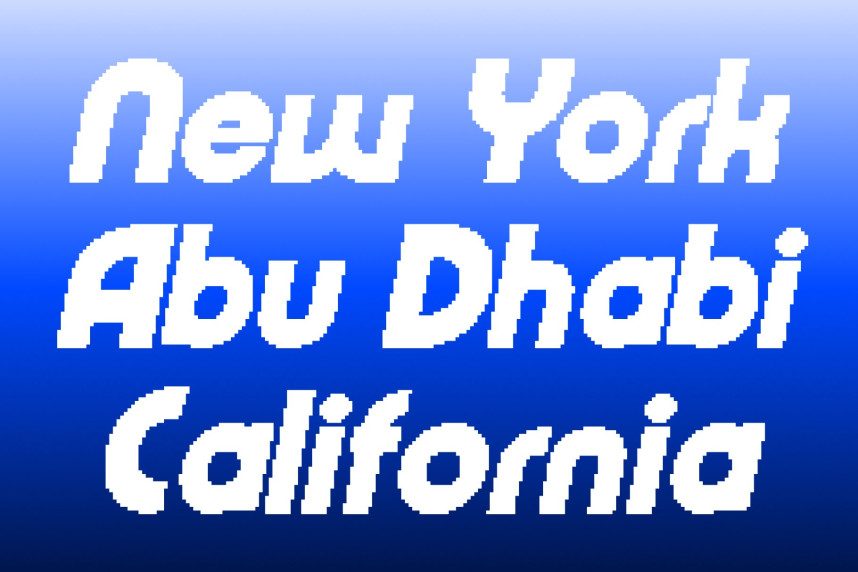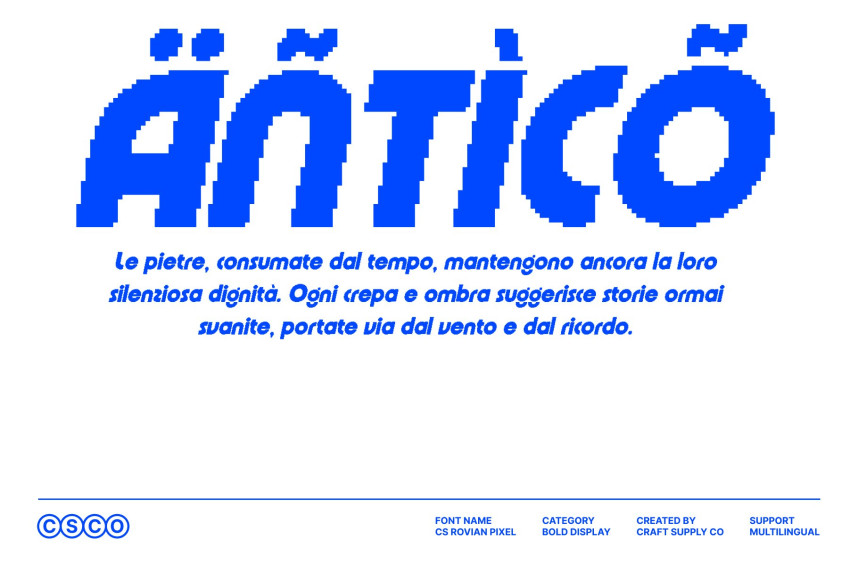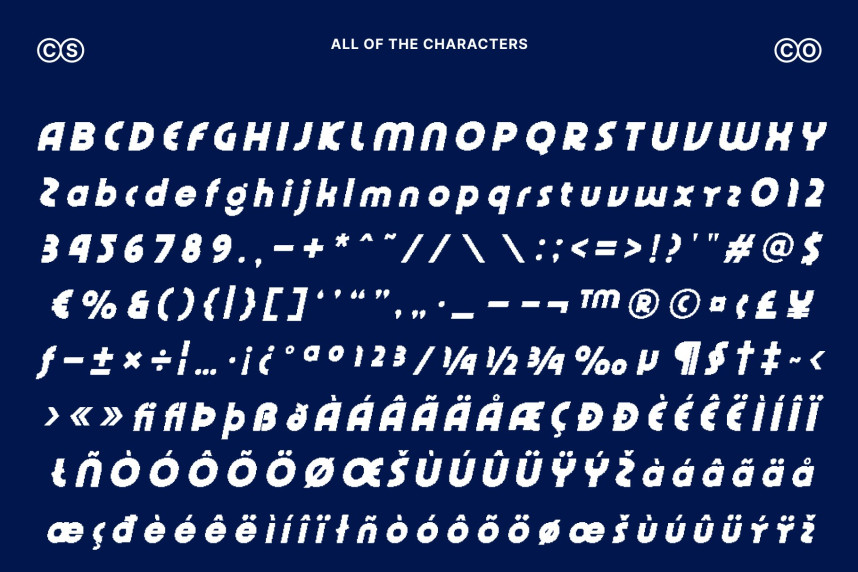
CS Rovian Pixel Font
CS Rovian Pixel Font – Modern Sans Serif with Geometric Techno Playfulness Bold Geometric Sans Serif in Pixel Form. This is a modern sans serif font constructed with bold geometric shapes and a techno-inspired pixel structure. Its strong, block-based design delivers a confident visual presence, while subtle playful details bring energy and personality to each character. The result is a typeface that feels futuristic, expressive, and unmistakably digital.